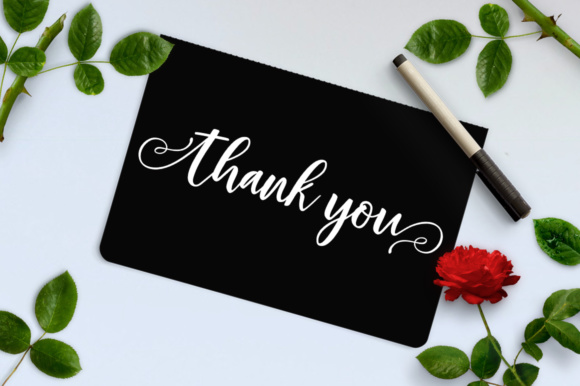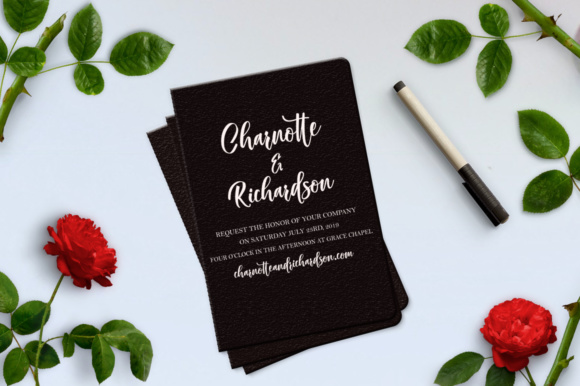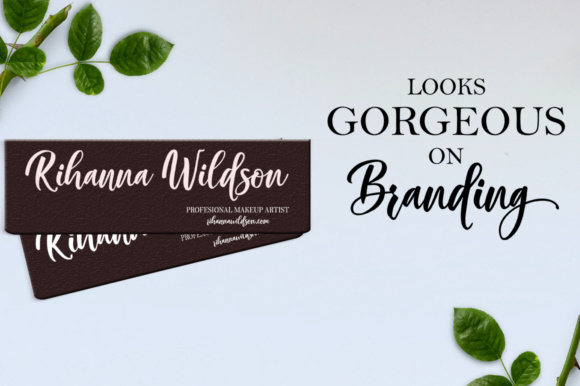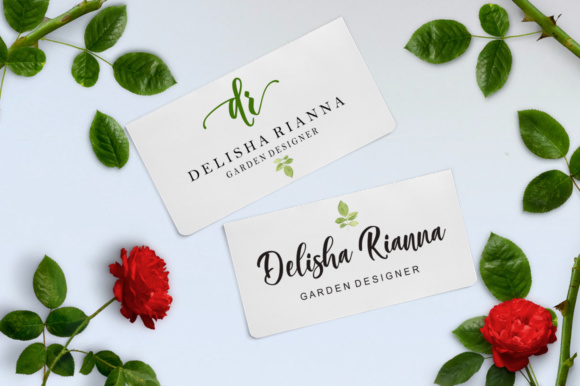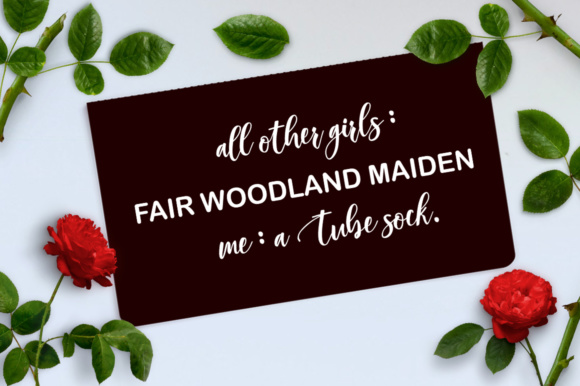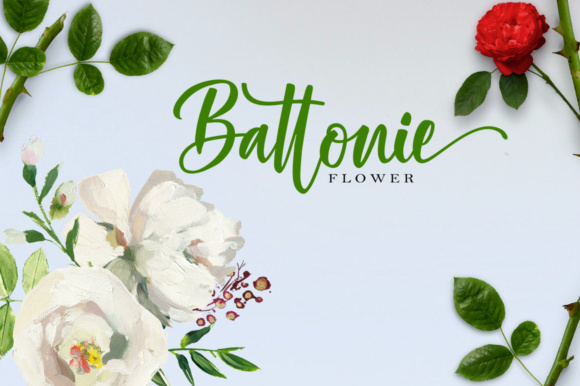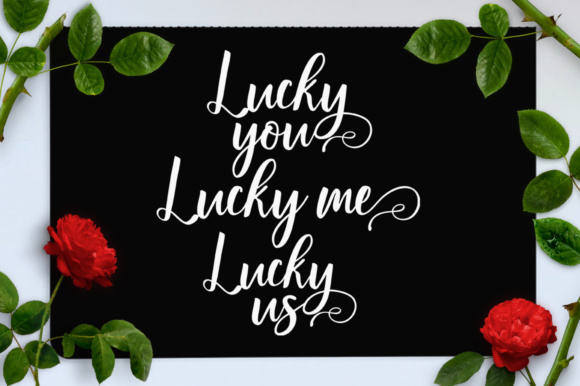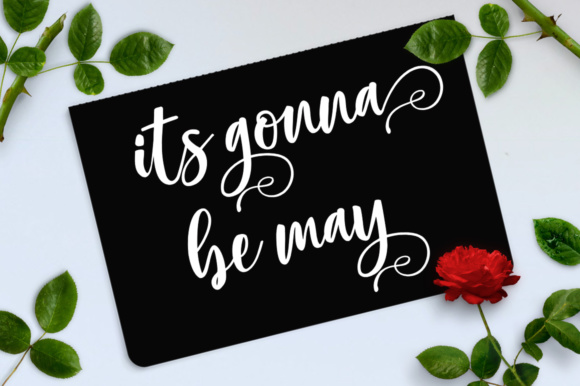
Batter Dinner Script Font
About Batter Dinner Script Font
The Butter Dinner is a new, trendy script font with an irregular baseline and a feminine style.
It looks lovely on wedding invitations, thank you cards, quotes, greeting cards, logos, business cards and is perfect for using in ink or watercolor.